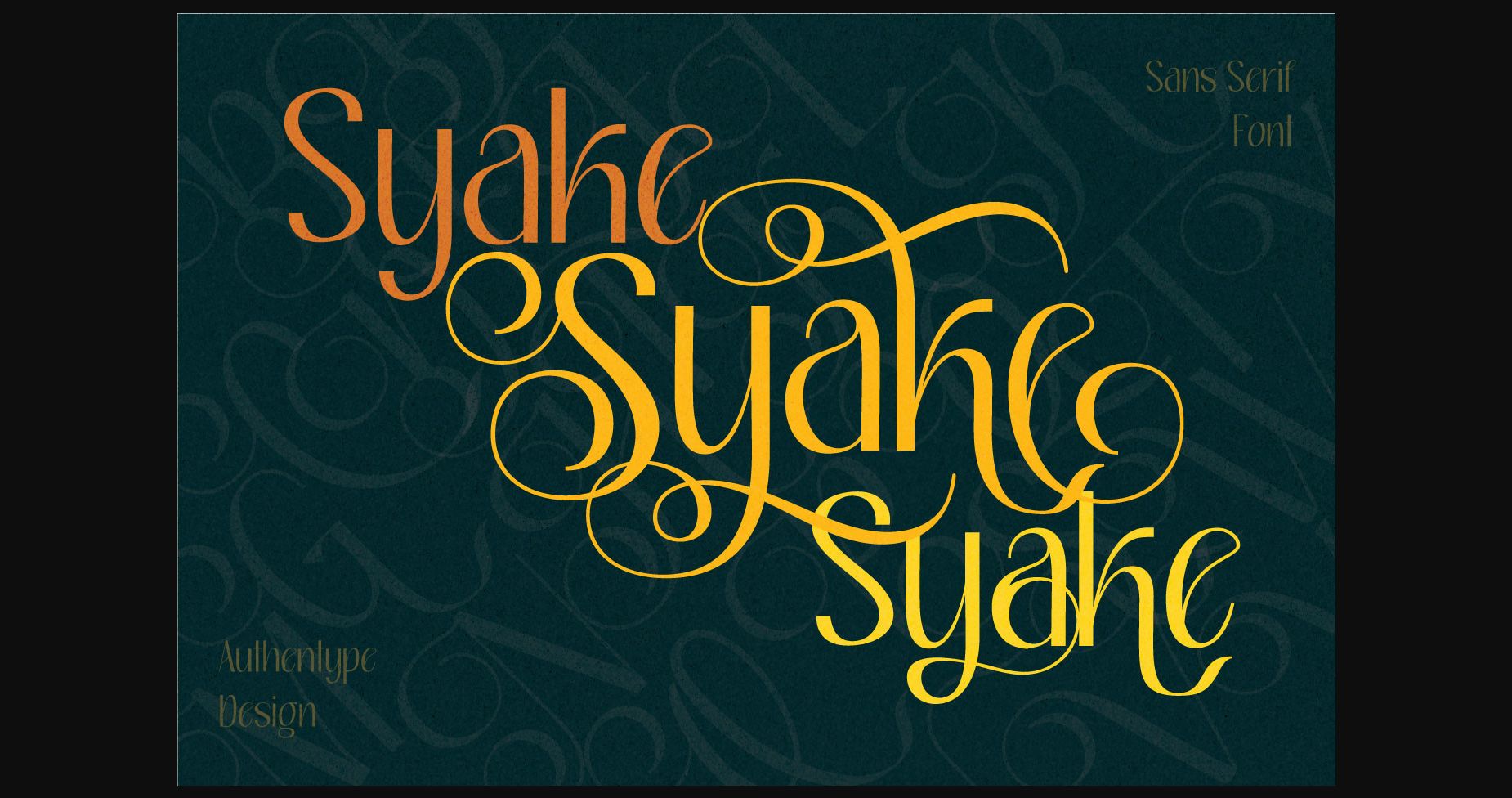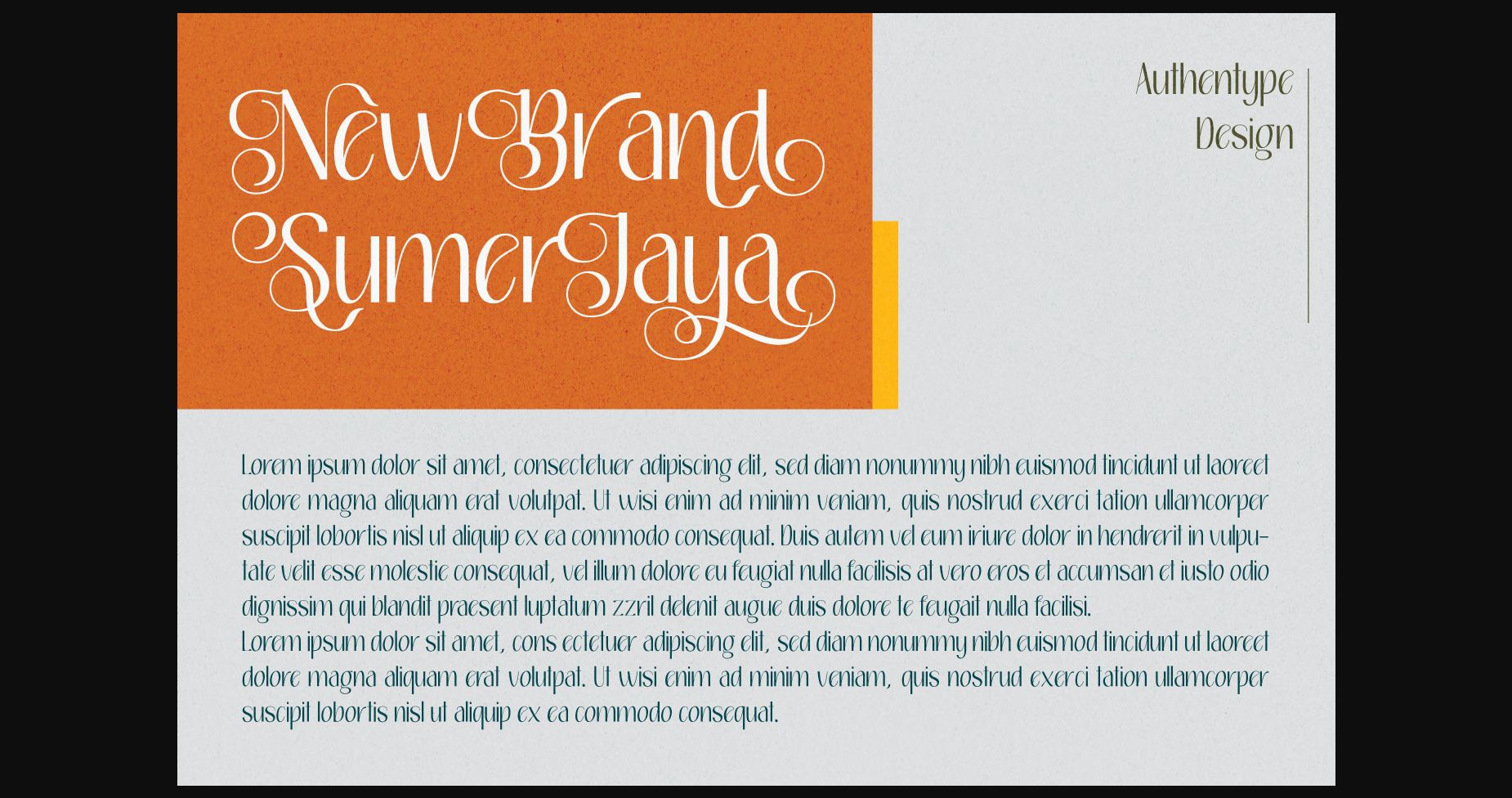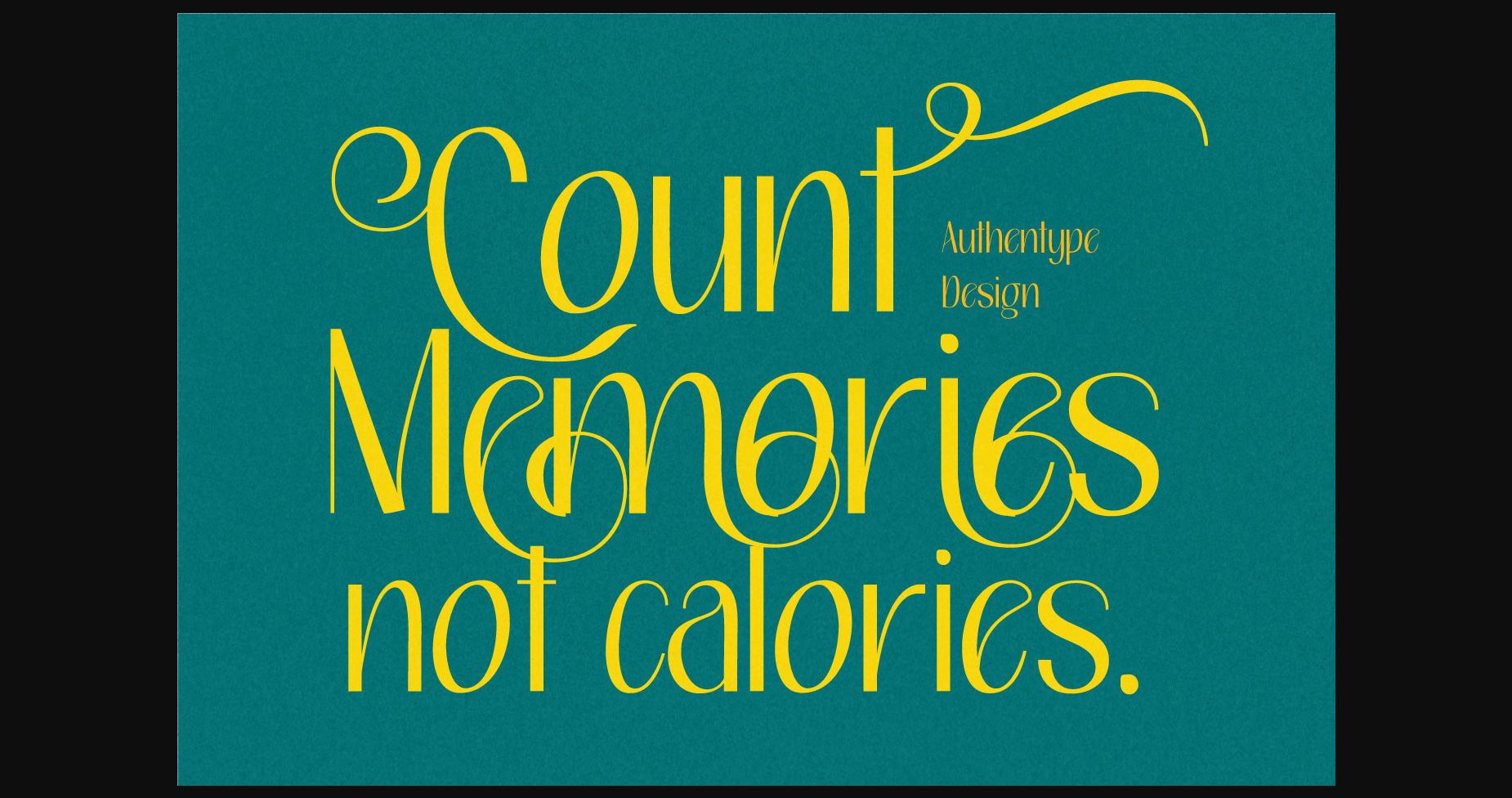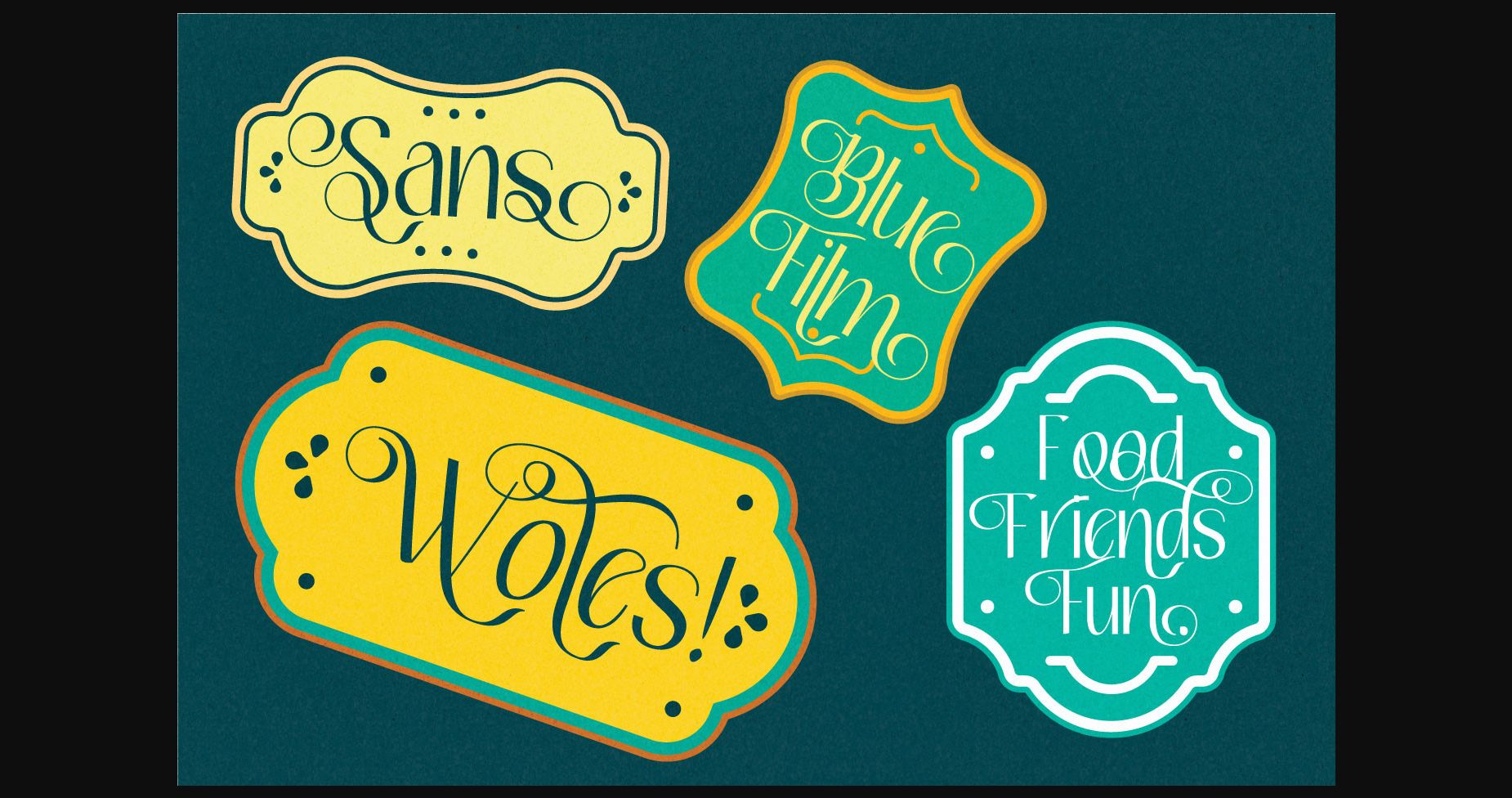
About Syake Font
Syake is an incredibly elegant and distinct sans serif font. It is defined by smooth curves and is perfect for fashion branding or editorial designs. Add it confidently to your projects, and you will love the results.